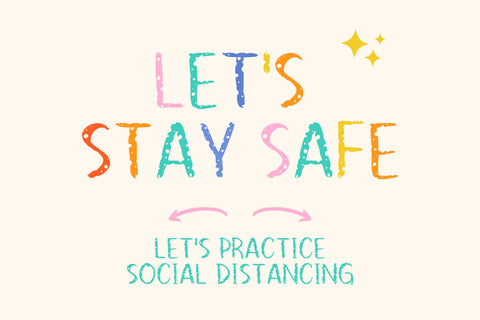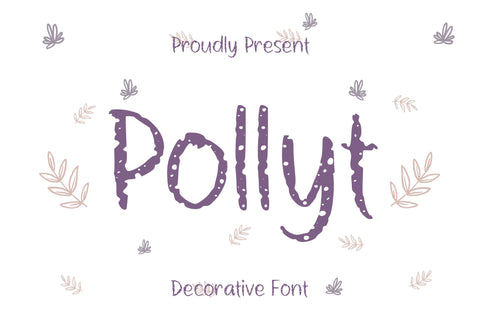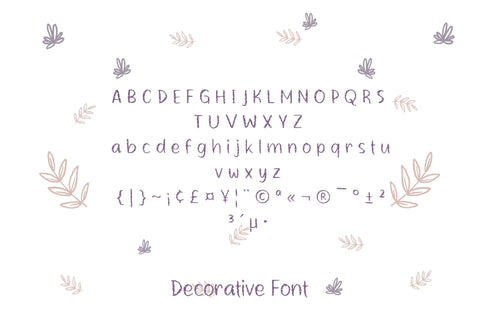
Pollyt Font
Pollyt is a sweet and friendly Display font. Its natural and unique style makes it incredibly fitting to a large pool of designs. The only limit is your imagination!
- Character set A-z
- Support multilanguage glyphs